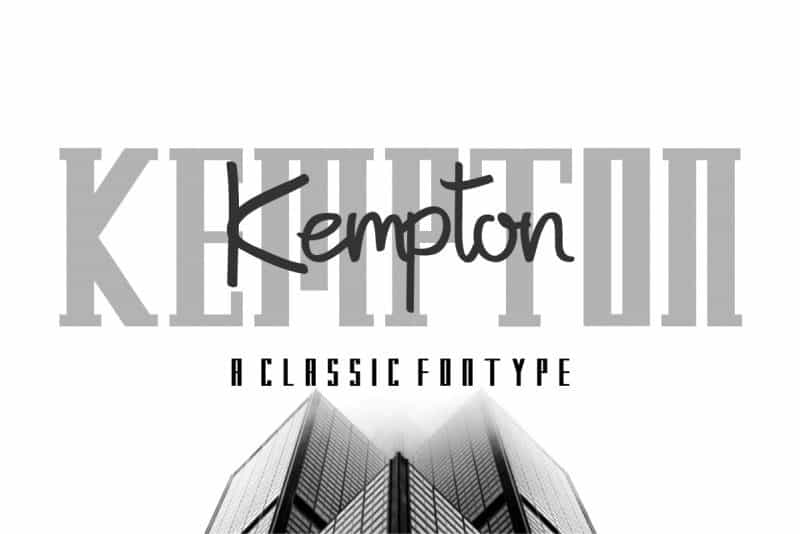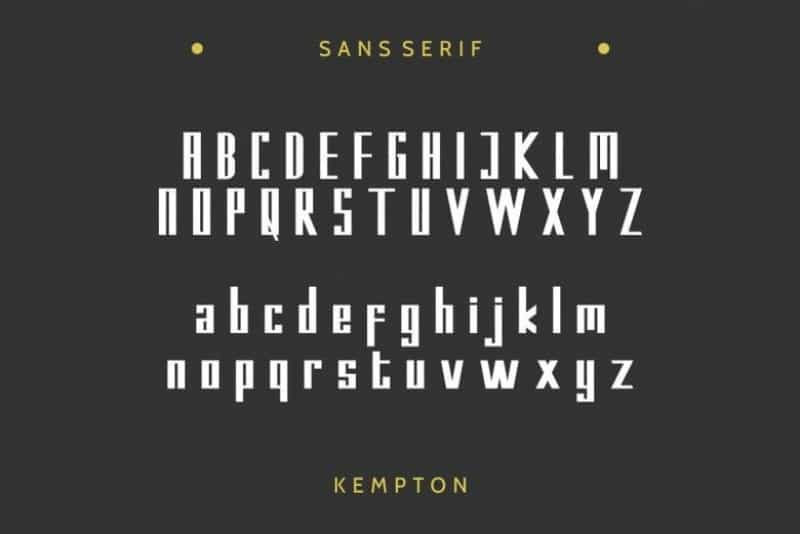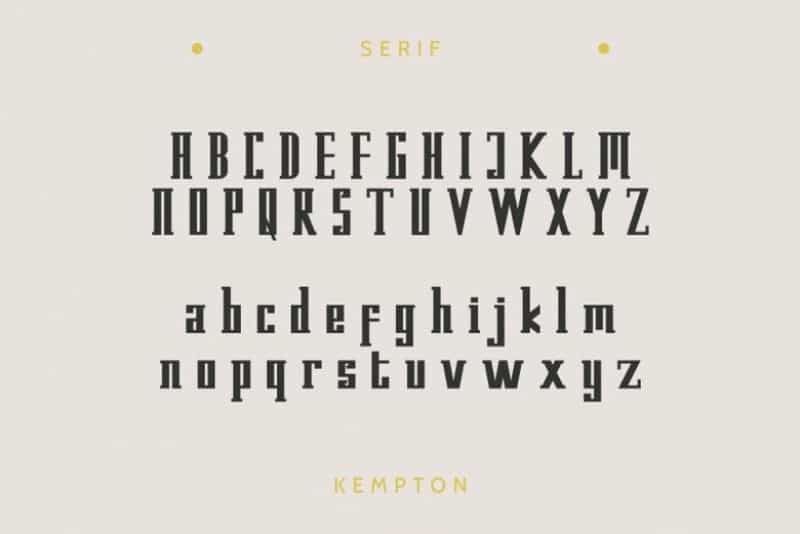
Kempton Typeface
Discover Kempton Typeface, part of the   Sans Serif  Handwritten  Serif collection—a versatile and unique font perfect for adding a personal touch to your projects. Download it for free and enjoy crafting designs with style, from invitations to social media posts. This font is available exclusively for personal use, giving you the freedom to create without limits. Unlock your creativity with Kempton Typeface today!
Hi Everyone! Introducing our newest font Kempton! This is a 3 fonts on ONE family. It has handwriting, Sans Display and Serif font. This sophisticated styling font will be perfect for branding, logo, photography and signature. It is so elegant, classy, strong and beautiful yet masculine. This font will Work on PC & Mac with Simple installations. Accessible in the Adobe Illustrator, Adobe Photoshop, Adobe InDesign, even work on Microsoft Word. It’s also PUA Encoded Characters Fully accessible without additional design software.